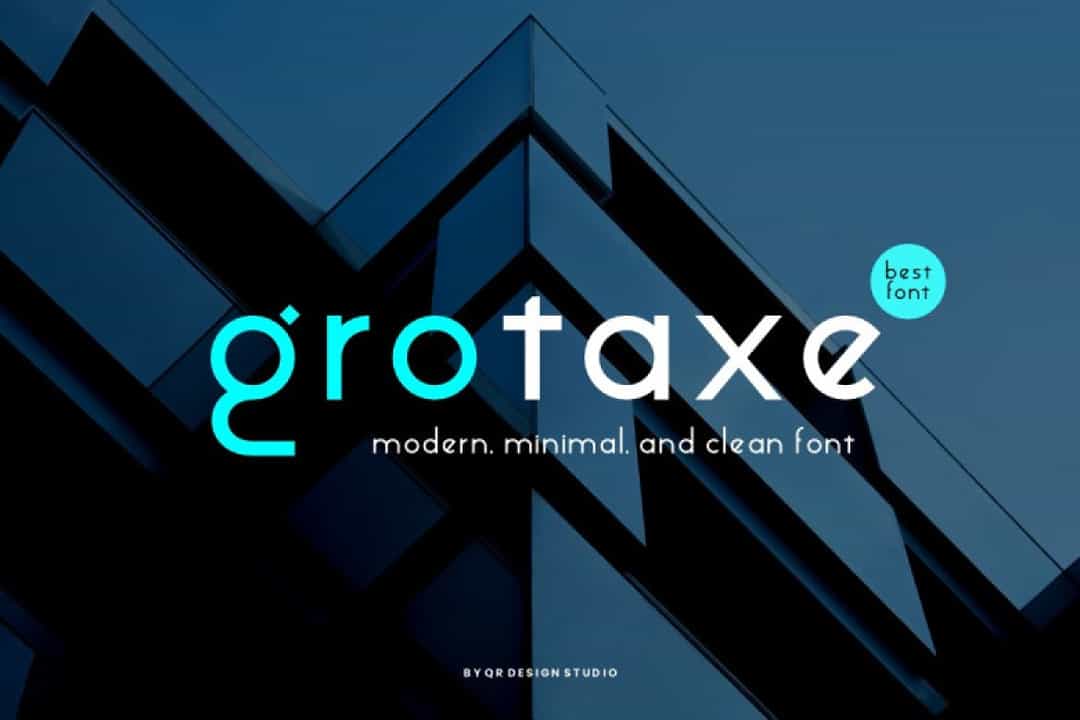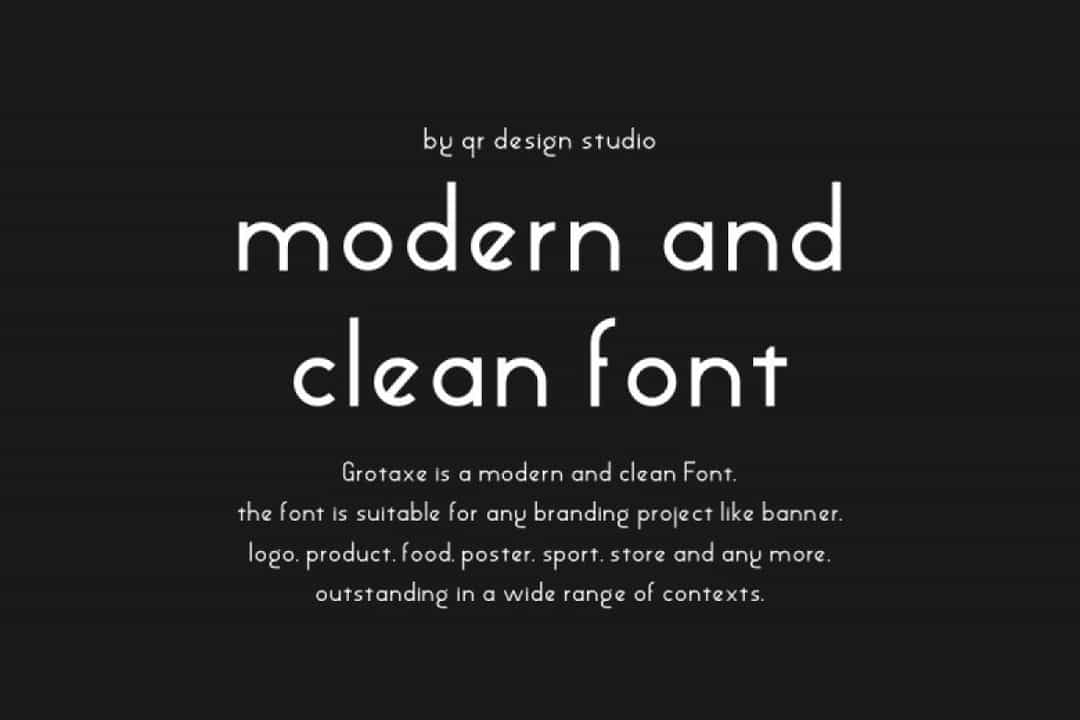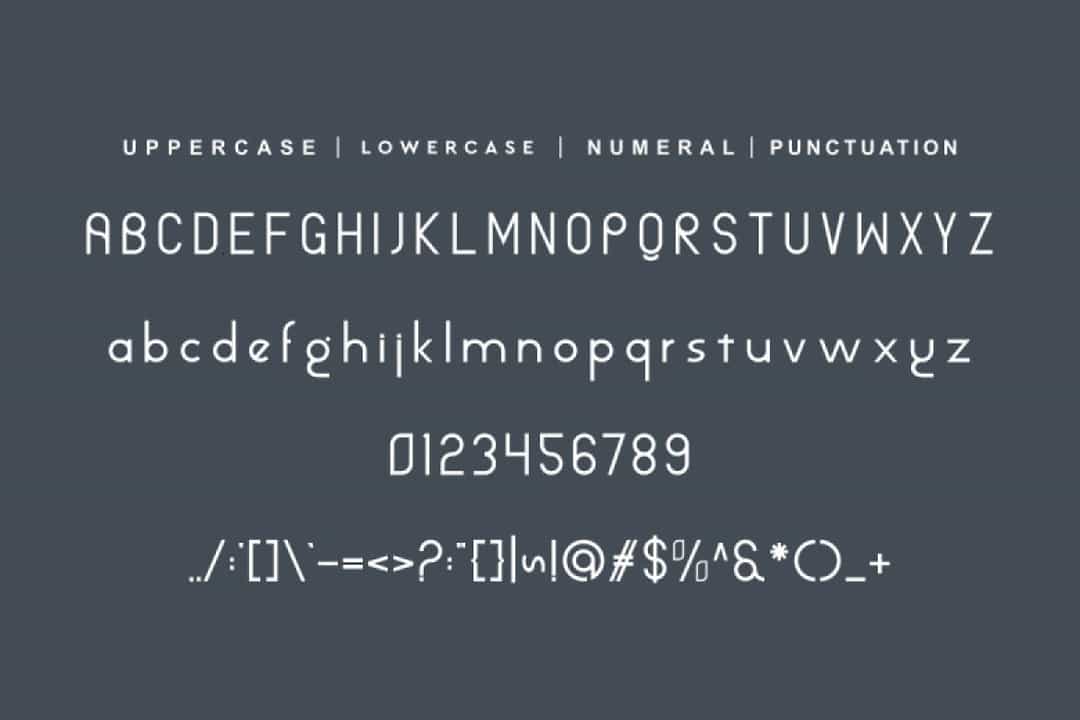
Grotaxe is a sans serif font, which is quite bold and asserts the intended message. Whether it is a business proposal or a creative work, this font will be a great addition to your collection of fonts as it can seriously upscale any design. This font is also PUA encoded, so you can easily access all the letters and ornaments within the font.